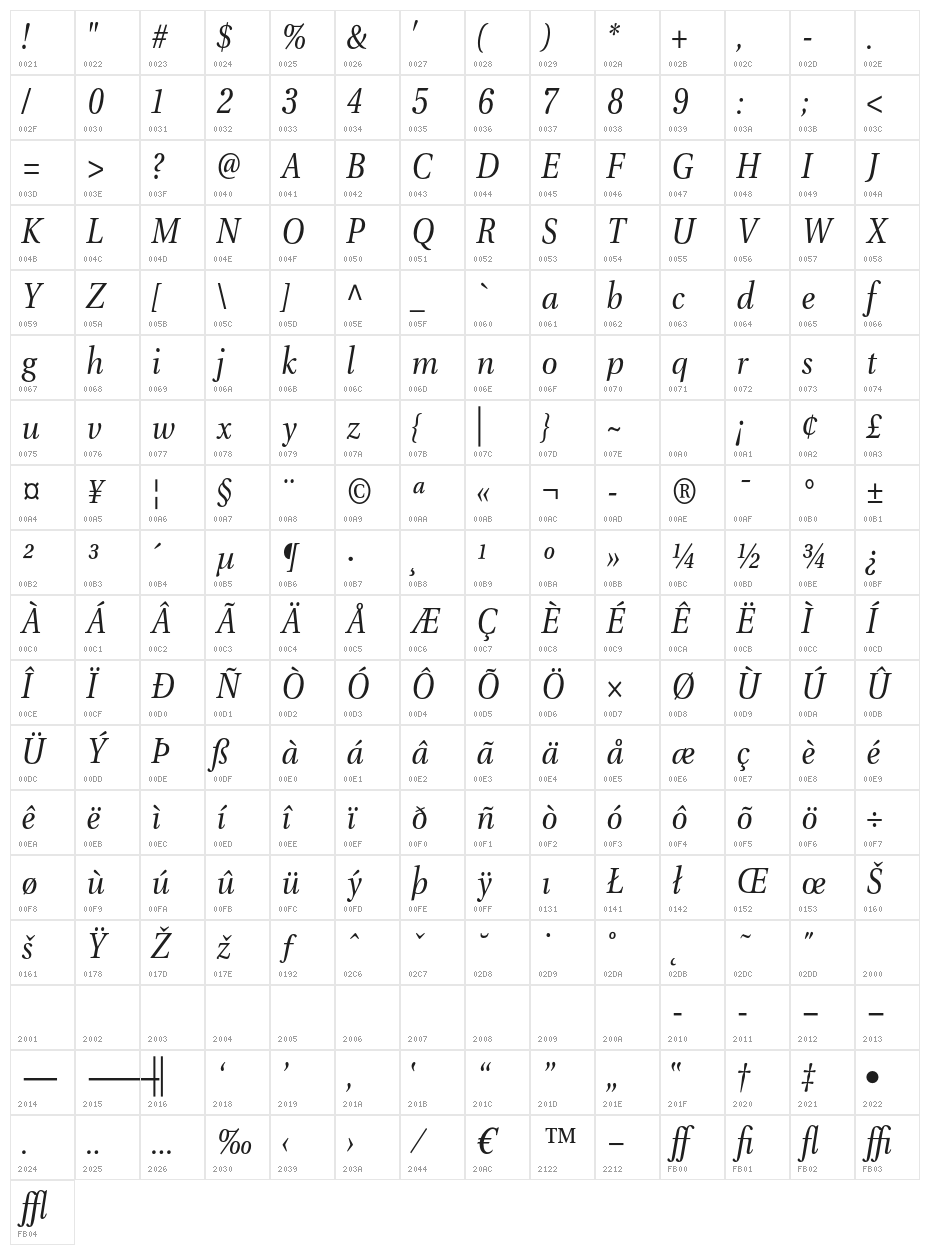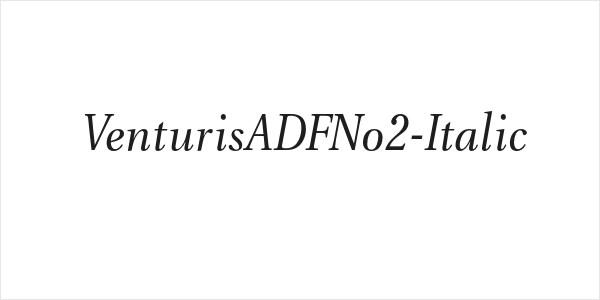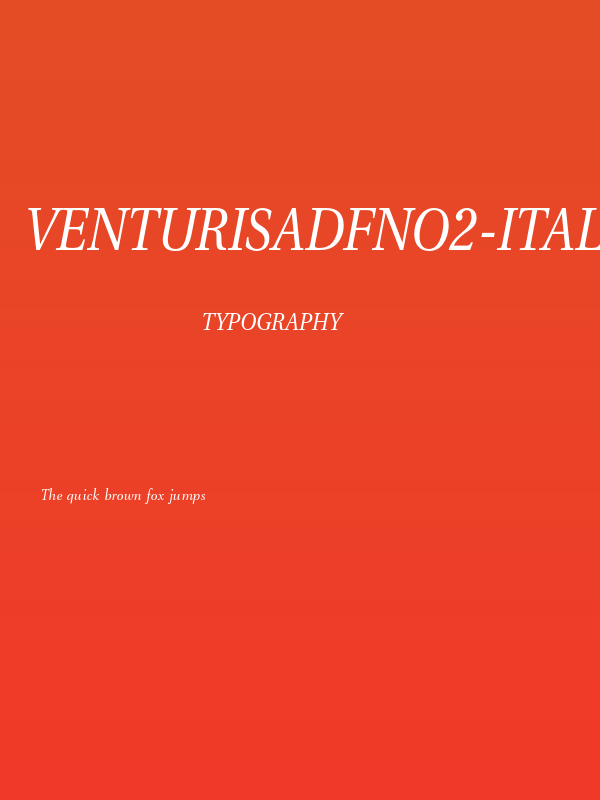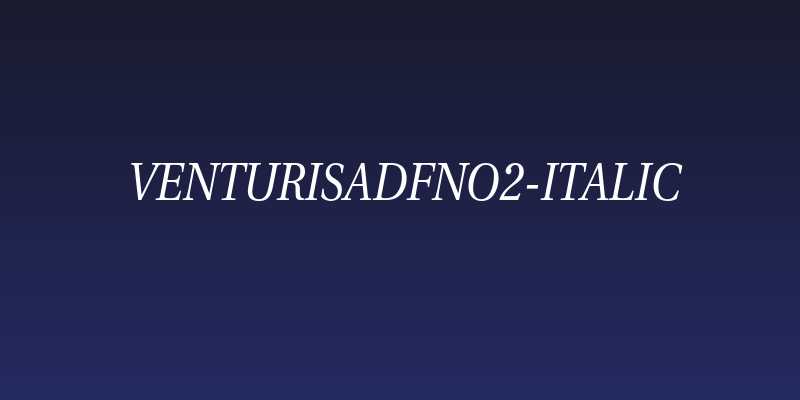
VenturisADFNo2-Italic Font
VenturisADFNo2-Italic Description
This font exhibits a classic serif style with a refined and elegant italic slant, providing a sophisticated appearance. The characters are well-proportioned, with smooth curves and sharp serifs that enhance readability while maintaining a stylish flair. The uppercase letters are stately and commanding, while the lowercase letters offer a graceful flow. The numerals are clear and distinct, complementing the overall aesthetic. Special characters are crafted with precision, adding to the font's versatility. This font is suitable for projects that require a touch of elegance and formality.
| Proposed Projects | Ideal for formal invitations, elegant branding, editorial design, and sophisticated advertising. |